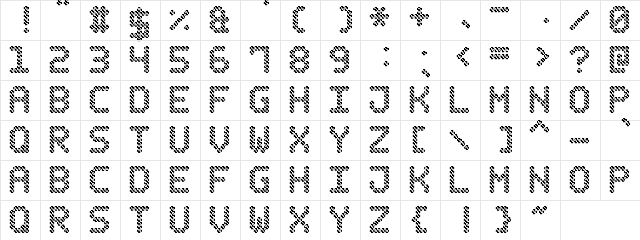
Bubble Pixel-7 Hatch Regular
Design Context for Bubble Pixel-7 Hatch Typeface
Bubble Pixel-7 Hatch is rooted in pixel-grid construction, making it a natural fit for game UI, retro computing aesthetics, and digital nostalgia projects.
Well-suited to indie game interfaces, retro computing aesthetics, and pixel art-adjacent design work.
Pro Tip: Use Bubble Pixel-7 Hatch at sizes that align with its pixel grid for the sharpest rendering — scaling to non-integer multiples can introduce unwanted blur.